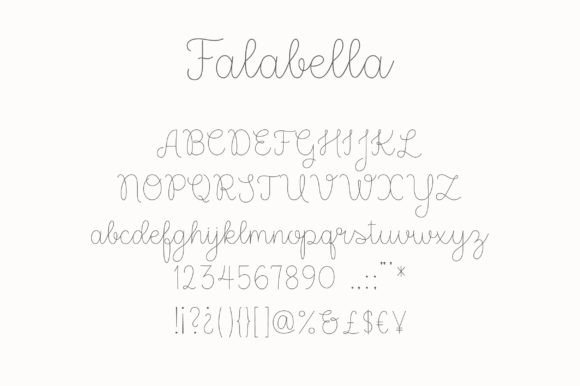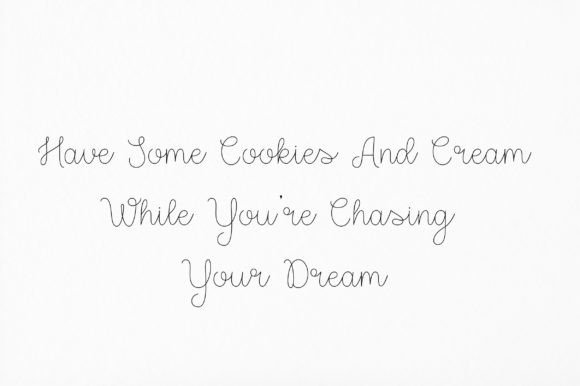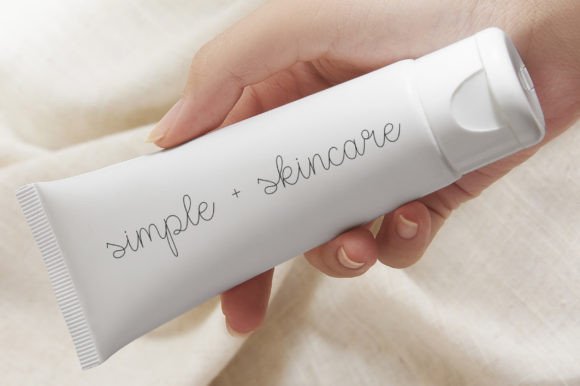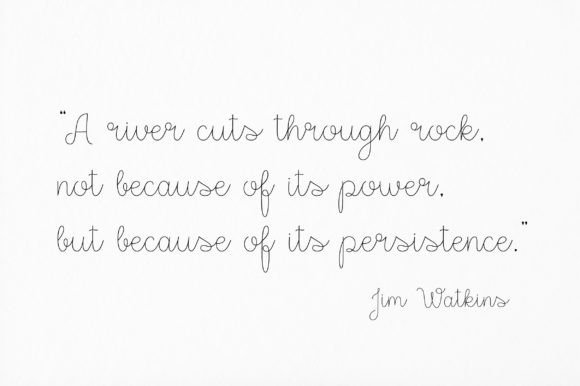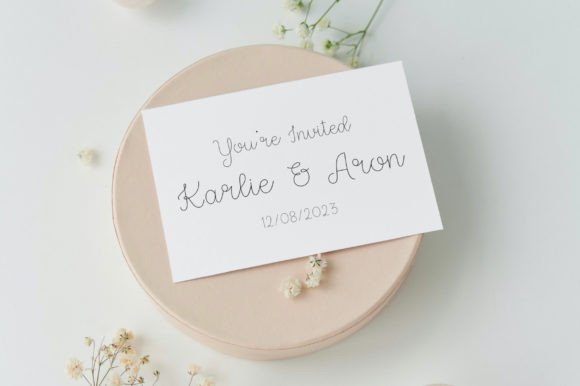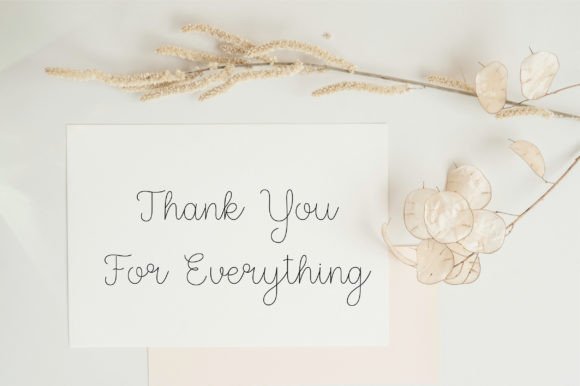
The Falabella Font: A Cute and Romantic Addition to Your Design Toolbox
I still remember the design project that led me to discover the Falabella font. I was working on a branding project for a small boutique, and I needed a font that would convey a sense of elegance and playfulness. After hours of searching, I stumbled upon Falabella, and it instantly stole my heart. The monoline script with its rounded edges and gentle curves was perfect for the project. In this article, I’ll share my experience with the Falabella font, its features, and how to make the most of it in your designs.
An Honest Review of Falabella Font
What I Love About Falabella ✨
- 💕 Cute and romantic aesthetic: Falabella’s monoline script is perfect for creating beautiful, hand-crafted designs.
- ✅ Highly versatile: This font can be used for various design projects, from crafting and social media graphics to apparel design and product design.
- 🎨 Great for branding: Falabella’s elegant and playful vibe makes it an excellent choice for branding and packaging design.
- 👍 Easy to read: Despite its script nature, Falabella is surprisingly legible, even at smaller font sizes.
- ⚠️ Limited character set: Falabella might not have all the characters or glyphs you need for a specific project. Be sure to check the font’s capabilities before committing to it.
- 🤔 Not ideal for body text: While Falabella is legible, it’s still a script font. For longer blocks of text, consider using a sans-serif or serif font for better readability.
The Designer Inspiration Behind Falabella
While I couldn’t find any information on the exact designer behind Falabella, it’s clear that the font was created with love and attention to detail. The designer’s inspiration likely came from traditional calligraphy and handwriting, with a focus on creating a modern, versatile script font.
| Font Name | Falabella Font |
| Author | sunday nomad |
Q: What type of projects is Falabella best suited for?
A: Falabella is perfect for crafting projects, social media graphics, apparel design, product design, and branding.